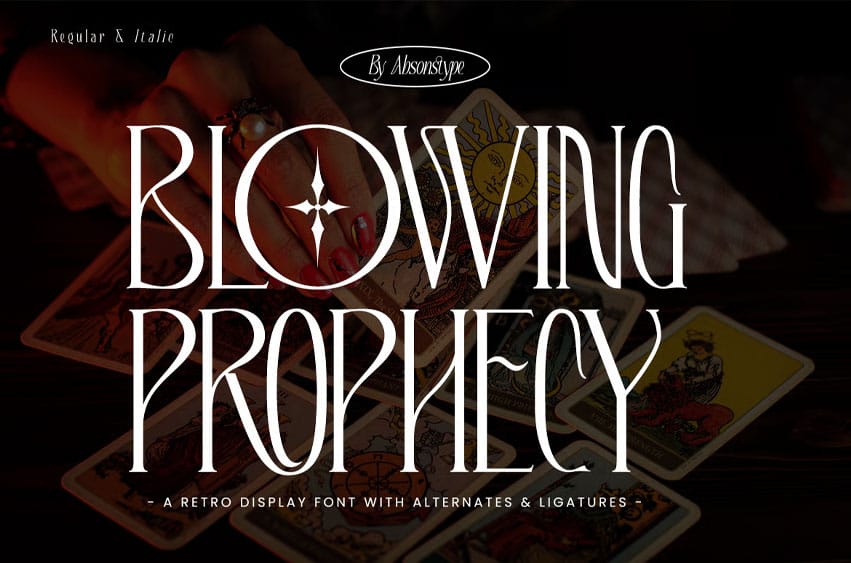
Blowing Prophecy Font Step into the mystic and enchanting world of Blowing Prophecy, a retro display font that blends timeless elegance with occult-inspired aesthetics. Designed to captivate and intrigue, this typeface features elongated letterforms, dramatic curves, and magical accents that evoke the mysterious charm of tarot readings and vintage esoterica.
Whether you’re designing posters, book covers, branding, or social media graphics, Blowing Prophecy adds a bold and magical personality to your projects.
- Two Styles: Regular & Italic for design versatility
- Alternates & Ligatures: Includes unique character alternates and custom ligatures to enhance typographic creativity
- Full Character Set: Supports uppercase, lowercase, numerals, punctuation, and multilingual characters
- Eye-catching Headlines: Ideal for titles, logos, and editorial work where impact and personality matter
- Vintage Charm with Modern Usability: Retro design meets contemporary function
- Creative Freedom: Alternate characters and ligatures open up unique layout and branding possibilities